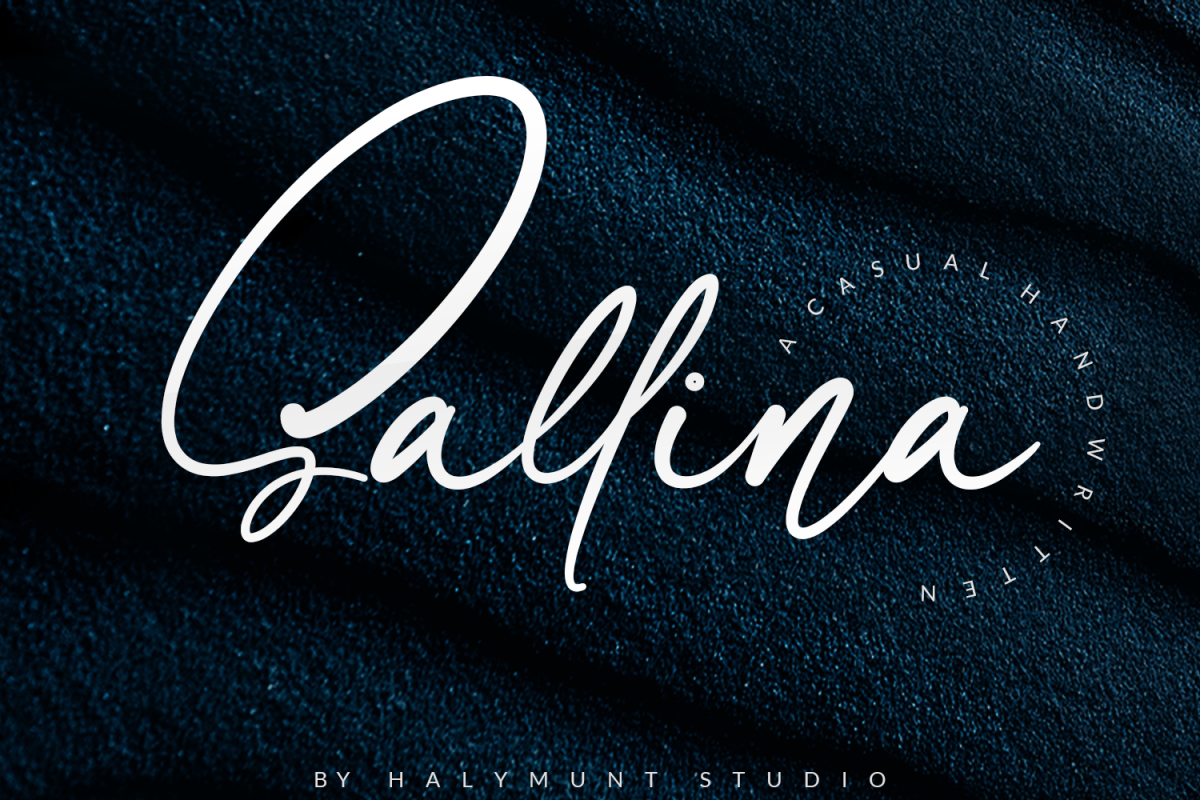
Sallina
Sallina is a stunning script featuring bold swashes. Get inspired by its sophisticated charm!
Sallina: is perfect for branding projects, logo, wedding designs, social media posts, advertisements, product packaging, product designs, label, photography, watermark, invitation, stationery, and any projects that need handwriting taste.
Sallina